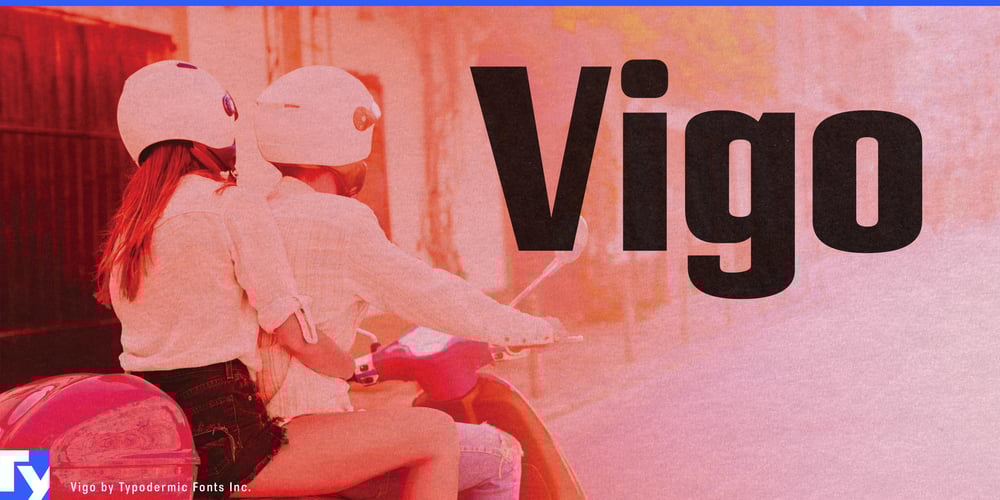
Vigo Font Family was designed by Ray Larabie and published by Typodermic. Vigo contains 1 styles and family package options. Cruise into timeless style with Vigo, the typeface that blends the charm of vintage scooters with modern typographic precision. This isn’t just a font—it’s a joyride through the streets of design, where slab serifs and sans-serif elements merge to create a uniquely dynamic visual experience.Vigo’s primitive lines evoke the sleek curves of classic scooters, while its muscular serifs stand strong like the sturdy frames that have carried riders through decades of urban adventures. Each character is a masterful fusion of form and function, much like the beloved two-wheeled icons that inspire it. Rev up your designs with Vigo’s versatile personality. Its bold presence commands attention whether you’re crafting eye-catching posters for a scooter rally or designing a sophisticated magazine spread about urban mobility. Vigo doesn’t just sit on the page—it zips across it with the energy of a scooter weaving through city traffic.But Vigo’s appeal isn’t limited to the retro enthusiast. Its unique blend of slab and sans-serif elements gives it a contemporary edge that’s equally at home in modern branding projects or cutting-edge digital interfaces. It’s the typographic equivalent of a restored vintage Vespa with a state-of-the-art electric motor—classic style meets forward-thinking design. Vigo speaks the language of the road, supporting a wide array of Latin-based European writing systems. From the winding streets of Rome to the bustling avenues of Berlin, Vigo ensures your message rides smoothly across linguistic landscapes. It’s not just crossing borders—it’s bringing the freedom of the open road to your typography.Ready to take your designs for a spin? Hop on Vigo and feel the wind in your serifs. Whether you’re crafting a logo for a hip coffee shop, designing signage for an urban renewal project, or laying out a travel magazine, Vigo delivers the perfect balance of vintage charm and modern flair.